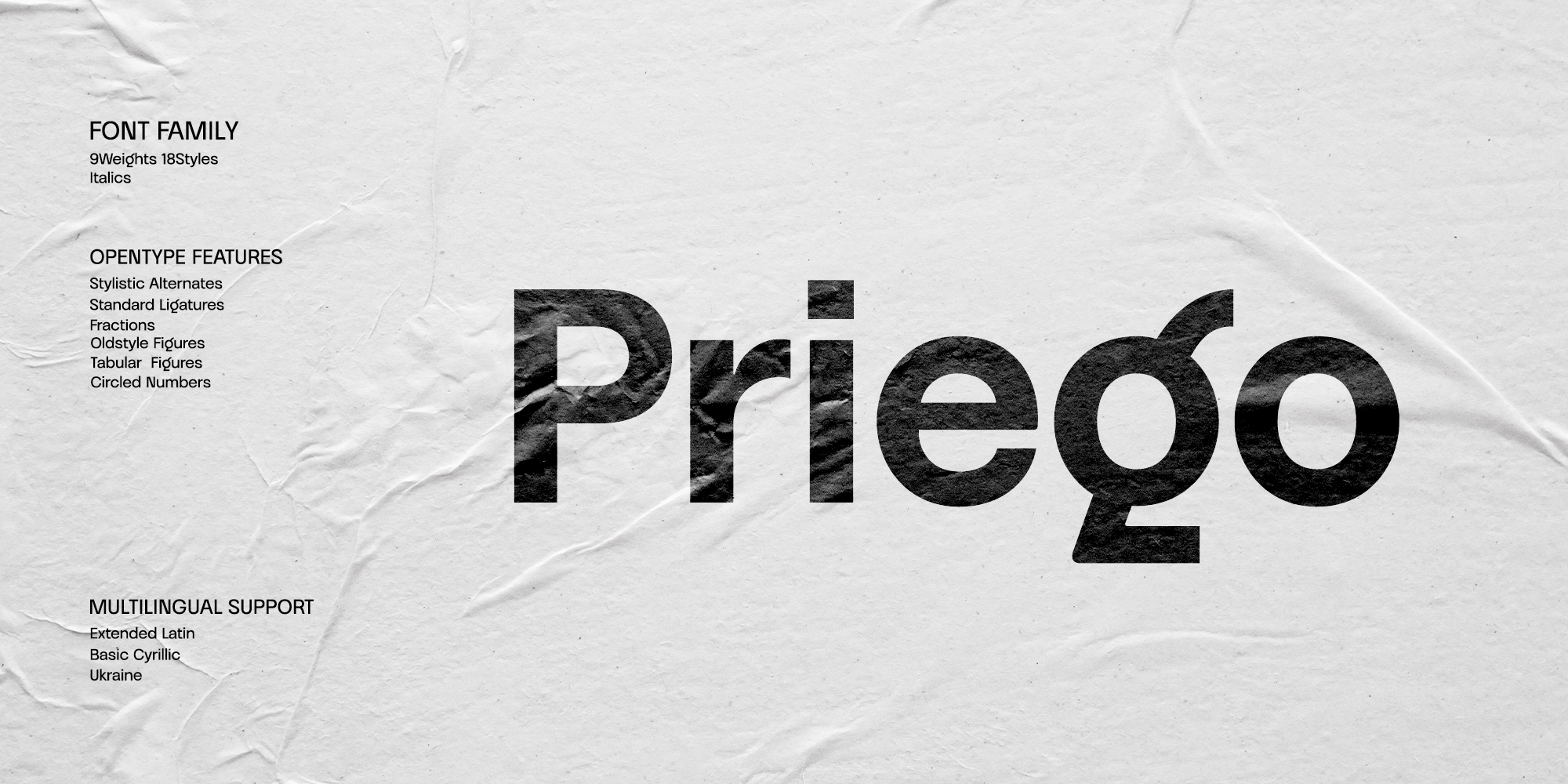
Priego Font demonstrates remarkable adaptability across sophisticated design applications including refined logo design, elegant brand identity, premium packaging solutions, upscale restaurant menus, luxury hotel materials, high-quality editorial layouts, corporate presentations, professional signage, boutique marketing materials, sophisticated web typography, cultural event promotions, and distinguished advertising campaigns. This refined typeface delivers exceptional performance in both digital and print environments, making it the ideal choice for businesses and designers who need to convey sophistication, quality, and timeless elegance in their visual communications.
What makes Priego Font Free Download truly exciting is its masterful balance between classical typography traditions and contemporary design sensibilities that creates an instantly distinguished and memorable visual presence. The font features expertly crafted letterforms with elegant proportions, refined character details, and sophisticated spacing that establish immediate credibility and professionalism while maintaining excellent readability across all applications. Its timeless aesthetic incorporates subtle traditional influences and polished design elements that make it suitable for both heritage brands and modern luxury applications. The font's distinguished appearance elevates any design project, transforming standard content into premium communications that command respect and attention.
The Priego Font family typically encompasses multiple weight variations including light, regular, medium, bold, and black, often complemented by corresponding italic styles and potential small caps versions that enhance its versatility. Each weight maintains the core sophisticated design integrity while offering different levels of visual emphasis and typographic hierarchy. The comprehensive character set supports extensive language coverage and includes essential punctuation marks, numerals, currency symbols, and specialized characters, providing designers with complete flexibility to create elegant typographic systems that maintain visual consistency across complex multilingual and professional applications.
Whether you're developing distinguished brand identity, creating premium marketing materials, or designing sophisticated digital experiences, Priego Font Free Download provides the typographic refinement necessary for producing authoritative and memorable designs. Its elegant character and versatile nature make it an essential addition to any designer's font collection, offering unlimited creative possibilities while maintaining the highest standards of sophistication, professionalism, and visual excellence in today's competitive luxury and premium design market.